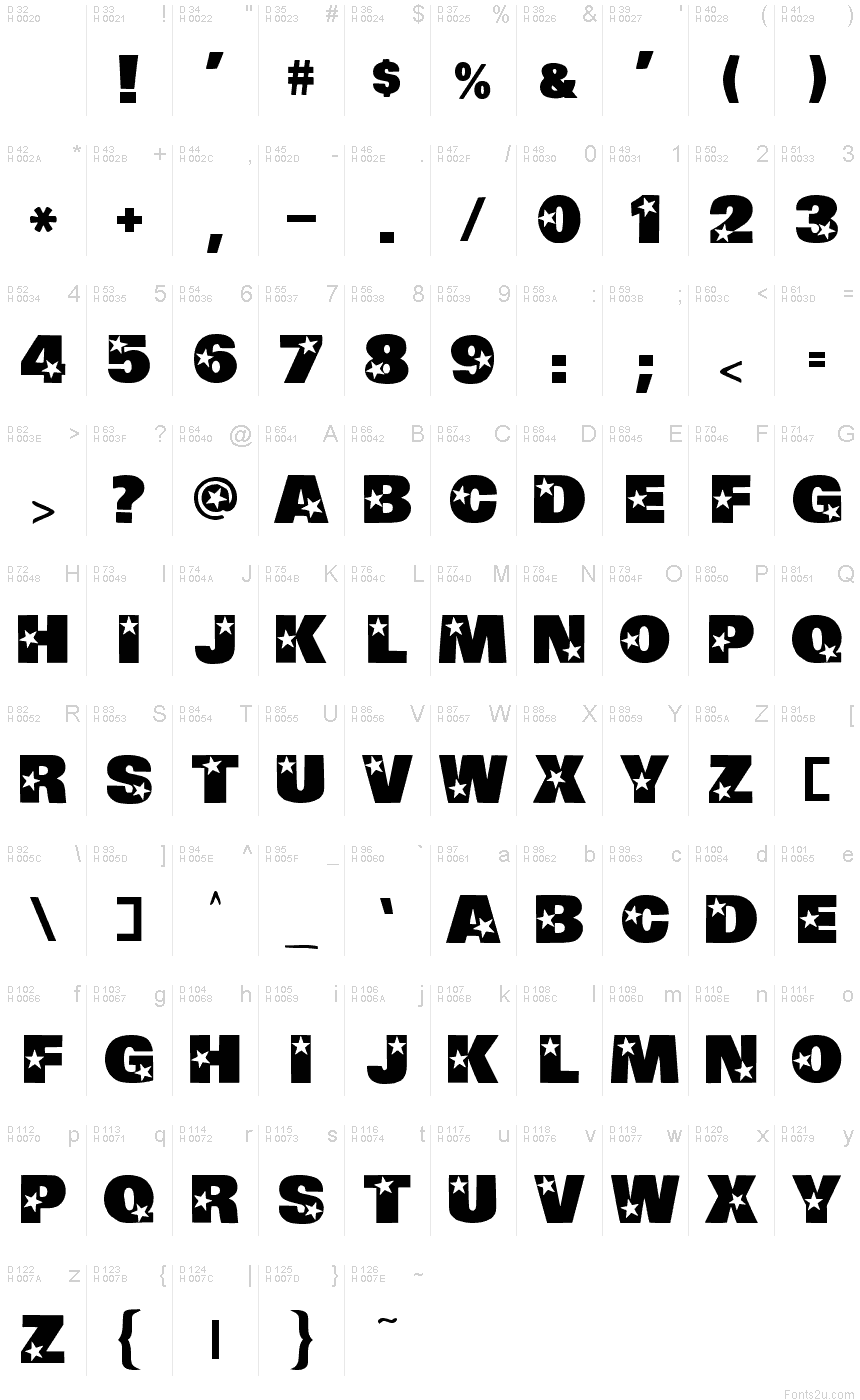
Politician
Politician, is a free star-cut display font with loud campaign-poster energy. The caps are built from chunky, squared forms, then punched through with oversized five-point stars, so the letters feel blunt, bold, and a little theatrical rather than merely decorative.
That makes it a natural fit for election spoofs, patriotic flyers, poster headlines, event banners, and cheeky editorial title cards where a short word needs a slogan-like punch. As a free font, Politician also works well for monograms and drop caps, because the star motif is repeated right inside the letters instead of sitting on top as an extra graphic.